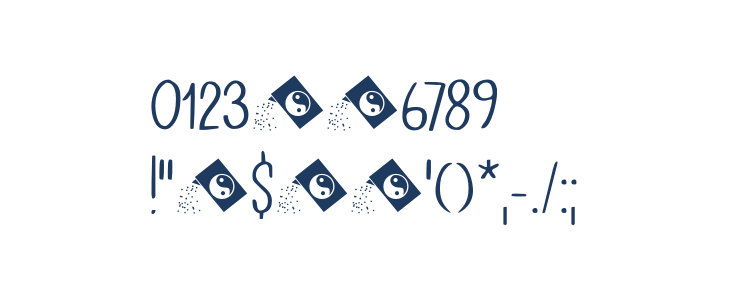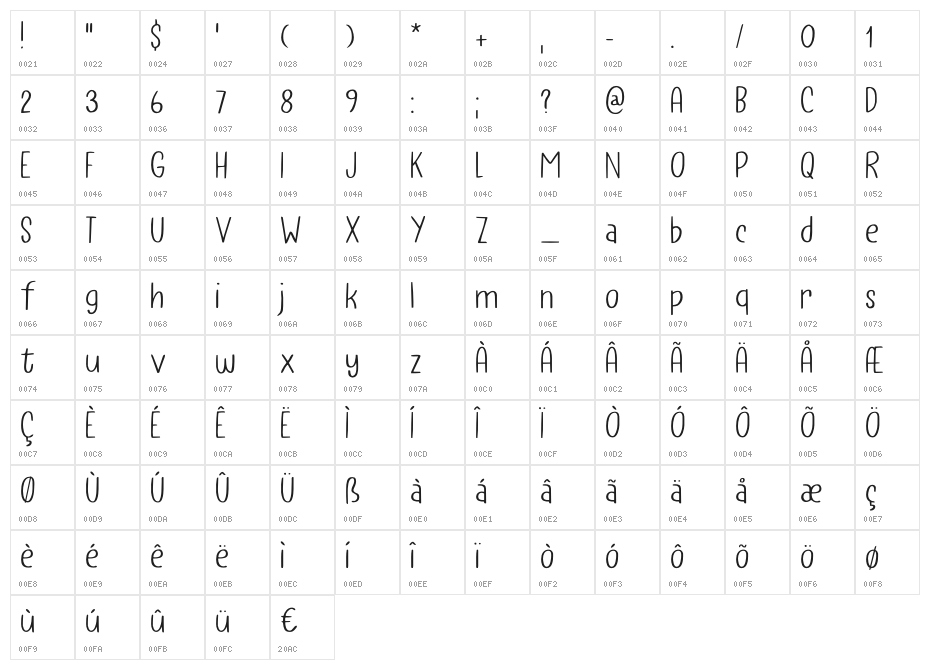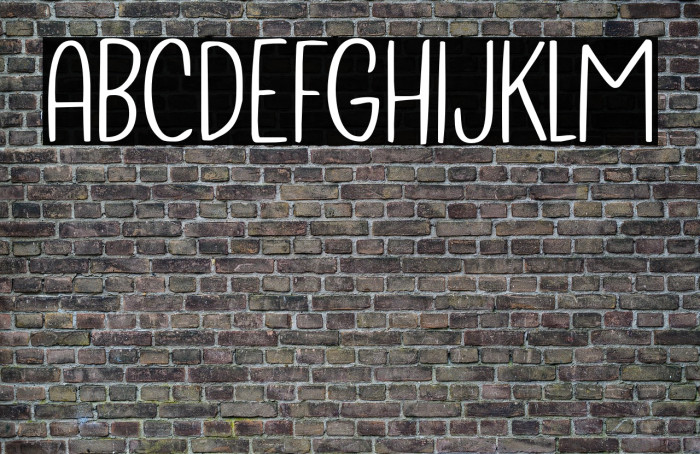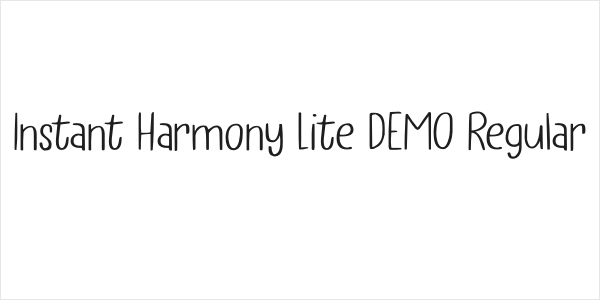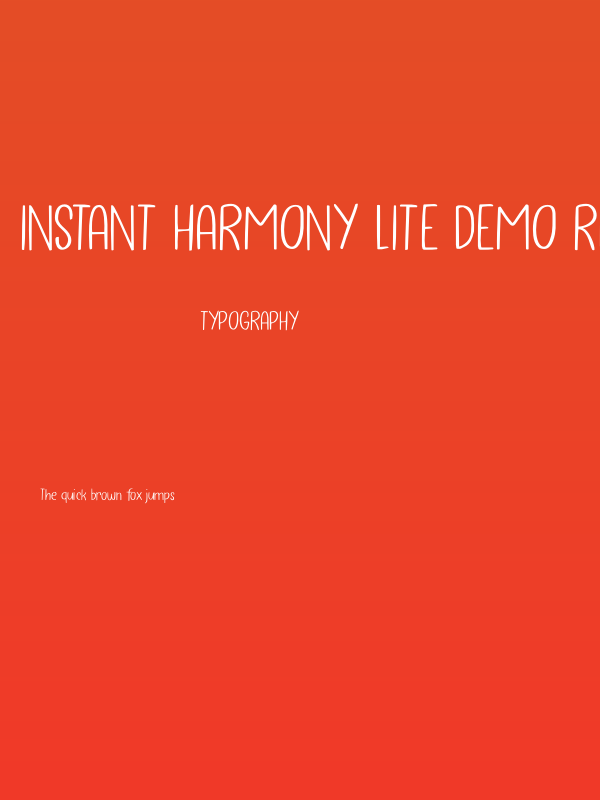
Instant Harmony Lite DEMO Regular Font
Instant Harmony Lite DEMO Regular Description
This font features a playful and slightly whimsical design, characterized by its tall, narrow letterforms and subtle curves. The uppercase letters are uniform in height, while the lowercase letters maintain a consistent baseline with gentle ascenders and descenders. The numerals are rounded and harmonious, complementing the overall style. Special characters are creatively integrated, adding a unique flair. The font's clean lines and balanced proportions make it versatile for various design applications.
| Proposed Projects | Ideal for children's books, playful branding, greeting cards, and creative posters. |